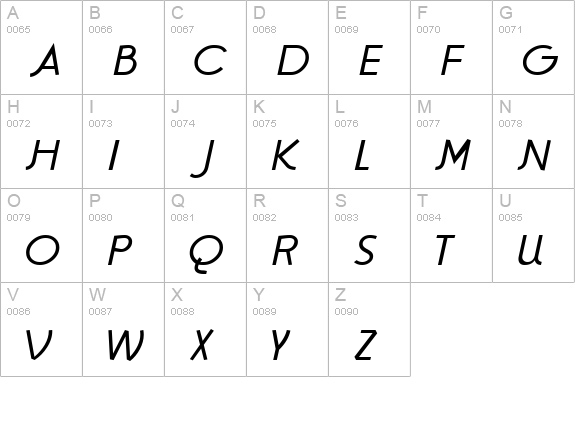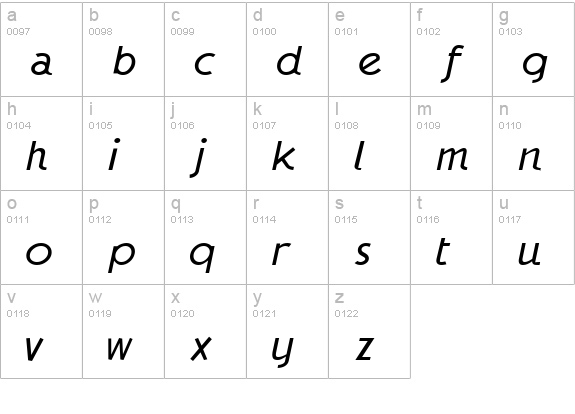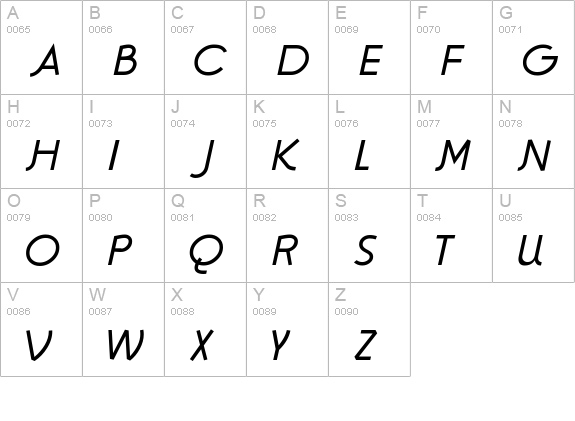
GaumontLight Italic is a distinctive, italic variant in the GaumontLight typeface family \xE2\x80\x94 well suited to design and typography projects.
GaumontLight Italic is a beautifully crafted typeface that exudes elegance and sophistication. Its delicate curves and stylish slant make it the perfect choice for adding a touch of grace to any design project. The flowing lines and subtle variations in stroke weight create a sense of movement and fluidity, making GaumontLight Italic a versatile font that can be used in a variety of applications. What sets GaumontLight Italic apart is that it is not only a stunning font, but it is also free to download at FontsMarket.com. This means that you can enjoy the beauty and versatility of GaumontLight Italic without having to spend a penny. Whether you are working on a personal project or a professional design, GaumontLight Italic is sure to elevate your work to the next level. With its timeless appeal and modern flair, GaumontLight Italic is a must-have font for designers looking to make a statement. Download GaumontLight Italic today and discover the endless possibilities that this exquisite font has to offer.